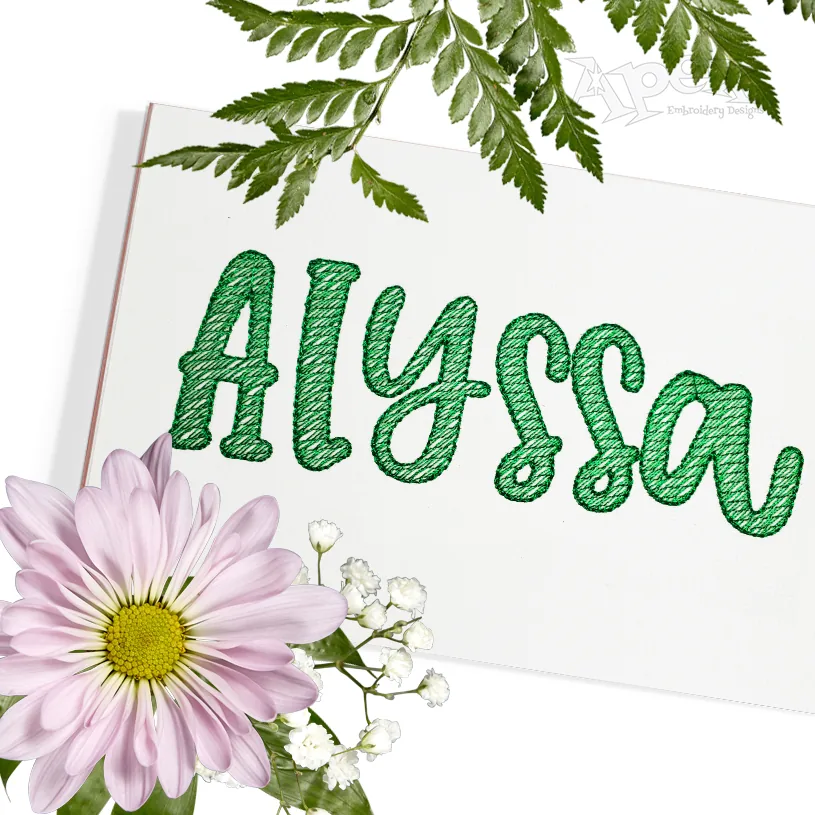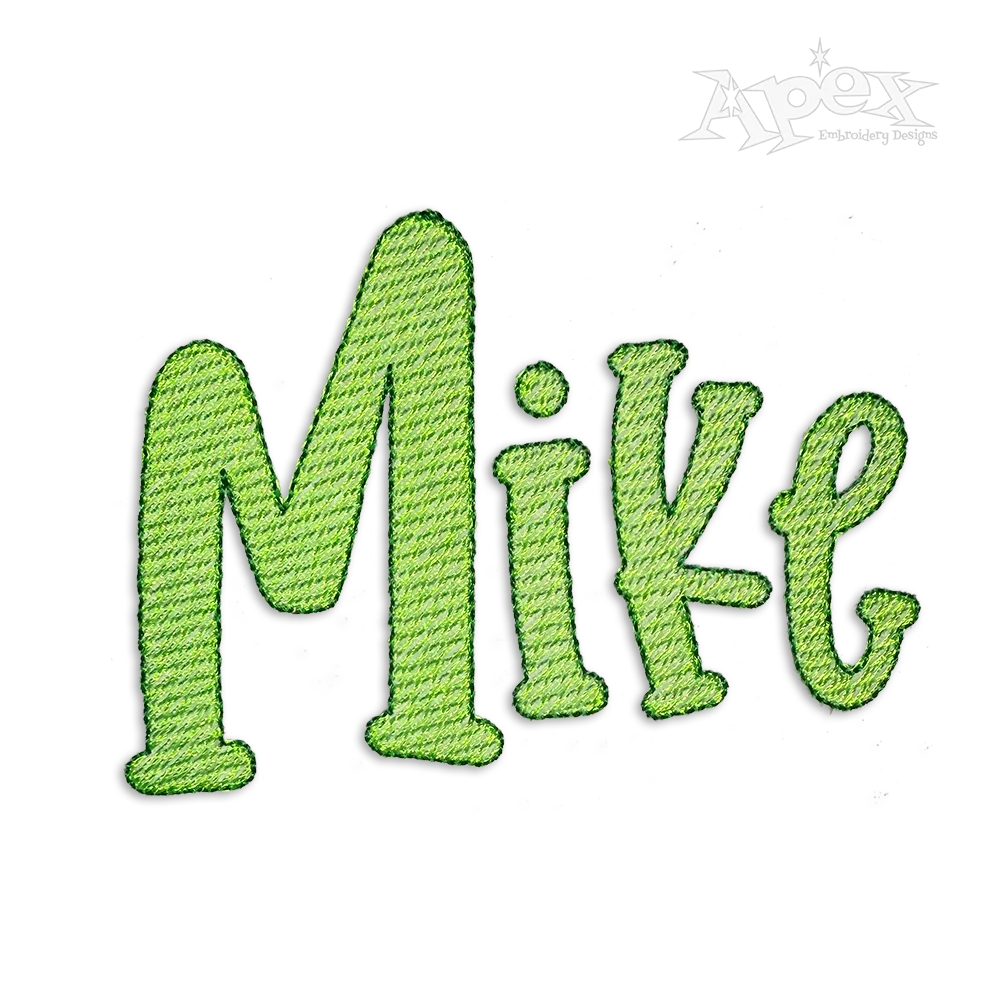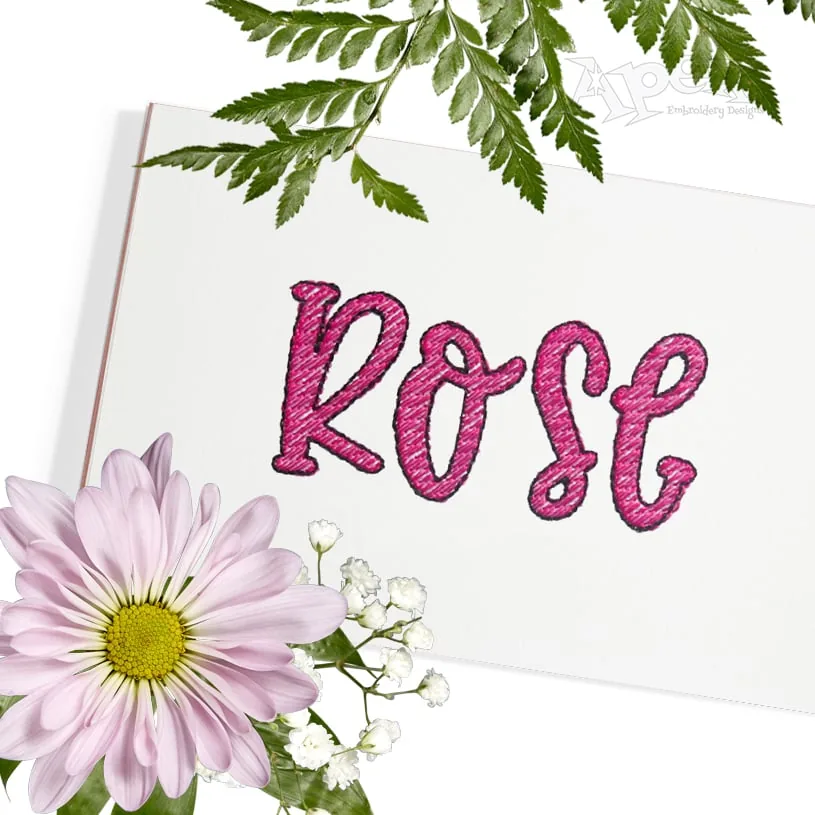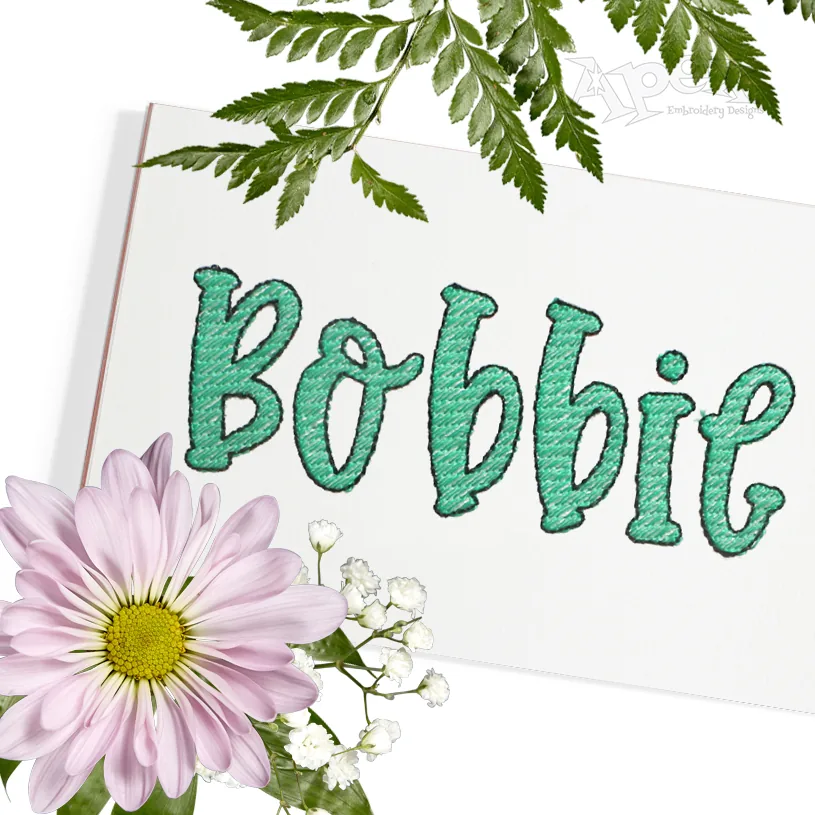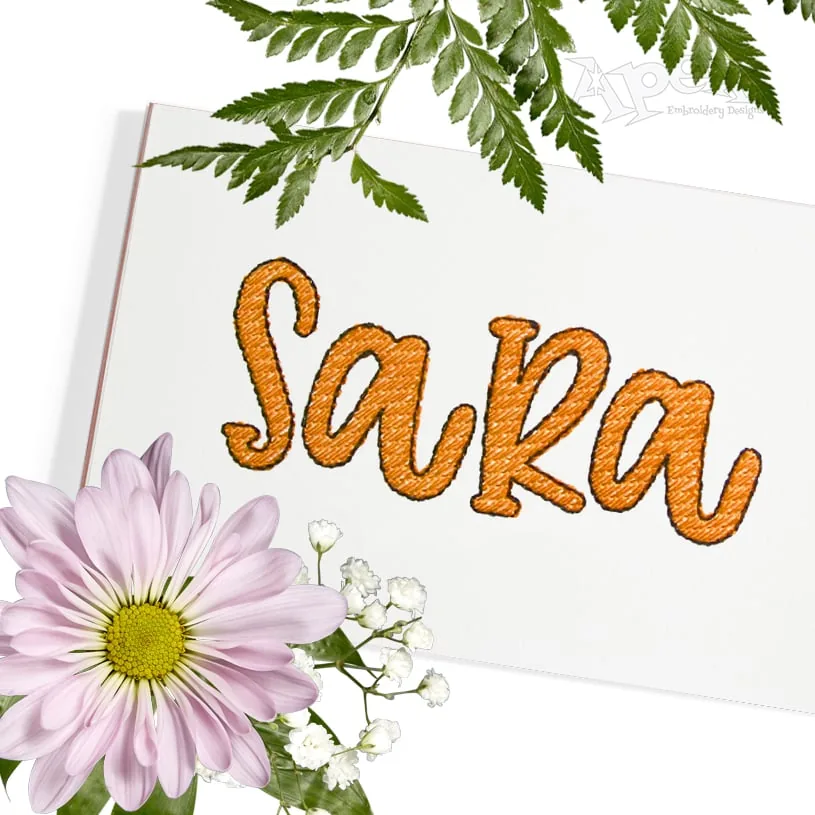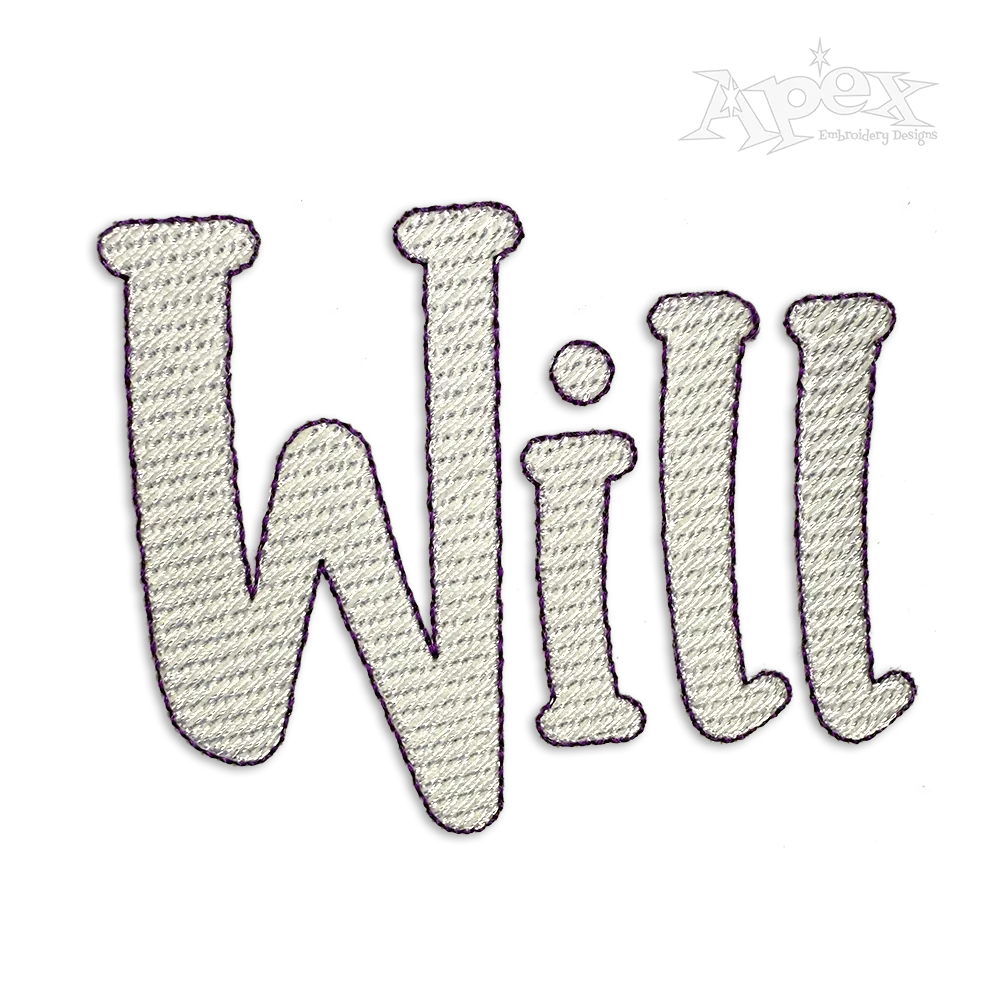
Juniper Sketch Embroidery Font
Conceived with the quiet grace of a botanist’s field notebook, the Juniper Sketch Embroidery Font captures the breezy, understated elegance of hand-rendered calligraphy. Rather than the rigid, unyielding density of traditional satin fills, this design breathes through deliberate hatch marks and delicate contour strokes, translating the tactile warmth of graphite and ink into luminous threadwork. It brings an effortless farmhouse chic and artisanal authenticity to every composition, ensuring personalized gifting and heirloom embroidery feel like an intimate handwritten signature stitched directly onto fabric.
Digitized with balanced stitch densities across five versatile heights, Juniper scales seamlessly from subtle, whisper-soft accents to bold focal pieces:
- 0.5-inch – Perfectly proportioned for delicate cuff monograms, collar points, and bespoke handkerchiefs.
- 1-inch – Sized for pocket monograms, cosmetic pouches, baby layette pieces, and personal accessories.
- 2-inch – A timeless scale for custom monogramming on linen cocktail napkins, apron bibs, and guest towels.
- 3-inch – A striking dimension for canvas tote bags, knit nursery blankets, and decorative ribbon accents.
- 4-inch – An airy statement size designed for accent pillows, denim jackets, and heirloom bedding.
Project Ideas for Juniper Sketch Embroidery Font
Because sketch embroidery retains natural drape and flexibility without weighing down lighter textiles, Juniper is exceptionally versatile across relaxed, modern lifestyle projects:
- Luxury Table Linens: Elevate fringed flax tablerunners, hemstitched place mats, and linen cocktail napkins with delicate tone-on-tone family initials.
- Bespoke Resort Wear & Loungewear: Embroider crisp poplin button-downs, gauzy caftans, and waffle-weave spa robes with personalized monograms that remain soft against the skin.
- Heirloom Nursery Essentials: Personalize organic muslin swaddles, chambray quilts, and baby keepsake pillows without dense, stiff embroidery backs.
- Bespoke Farmhouse Kitchenware: Embellish heavy cotton twill aprons, tea towels, and bread proofing liners with charming farmhouse-inspired culinary labels.
- Personalized Bridal Gifting: Create coordinating bridesmaid canvas totes, market bags, and tailored morning-of shirts for a relaxed, sun-drenched bridal aesthetic.
The fluid, sketch-fill architecture lends itself to both traditional and unconventional placements across fine garments and soft goods:
- Linen Napkins & Table Runners: Angle initials diagonally in the lower corner, placed 1.5 to 2 inches from the hem edge to frame the fold effortlessly.
- Casual Shirts & Chambray Tops: Position a 1-inch or 2-inch monogram centered above the left chest pocket line for an understated, bespoke tailored touch.
- Decorative Accent Cushions: Center a 3-inch or 4-inch single initial directly in the visual center of a lumbar pillow to anchor a rustic modern interior.
- Shirt Cuffs & Sleeve Hems: Use the 0.5-inch scale tucked discreetly onto a sleeve cuff or along the hemline of a sleeve for an intimate personal detail.
Juniper Sketch Embroidery Font Craft & Letterform Details
Digitizing an authentic sketch font requires a master’s restraint; too few stitches leave letterforms fragile and incomplete, while excessive thread density destroys the delicate illusion of a hand sketch. In Juniper, each letterform is mapped with precise travel paths and multi-directional running stitches that recreate the rhythmic, overlapping strokes of pencil lead on textured paper. The intentional variance in fill density captures light across the embroidery thread, providing rich visual depth without the board-like stiffness of traditional fills. With the addition of alternate lowercase glyphs, words flow with an organic cadence, honoring the beauty of human handwriting while stitching with clean, reliable precision on your embroidery machine.